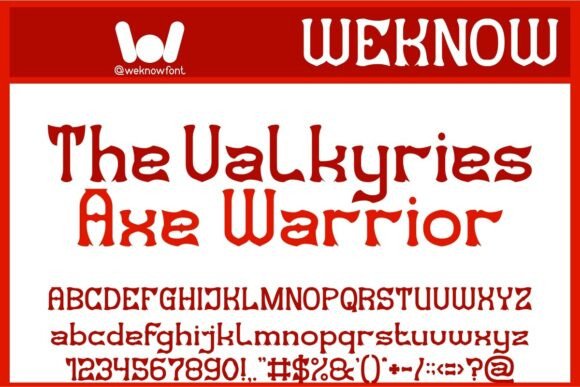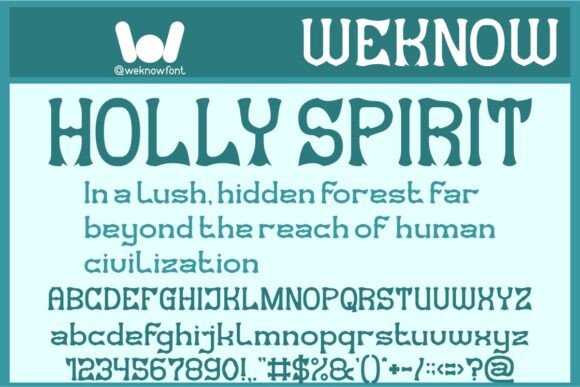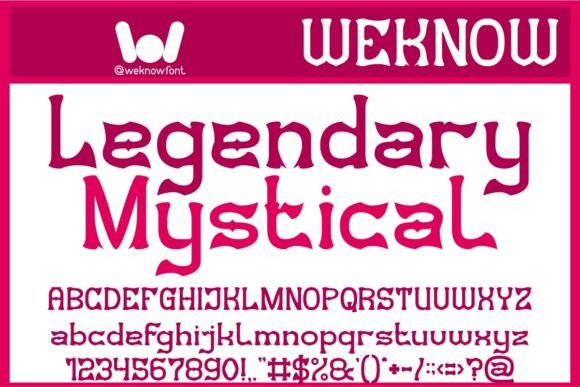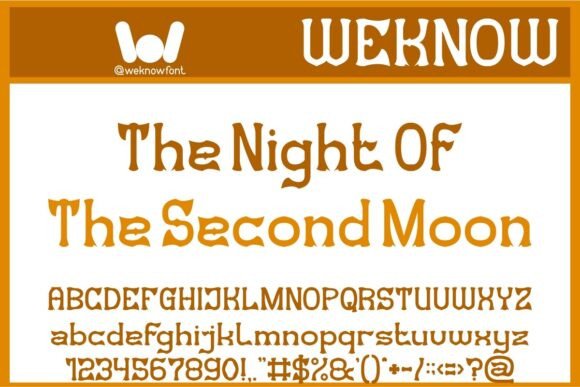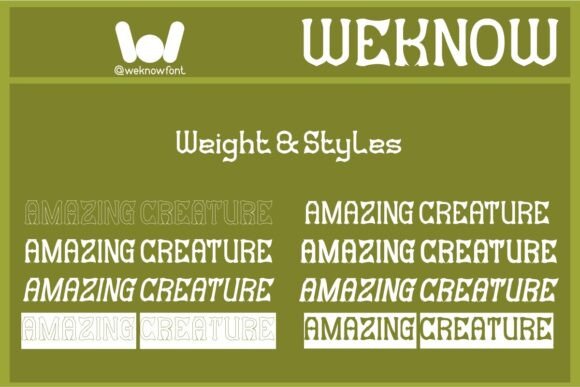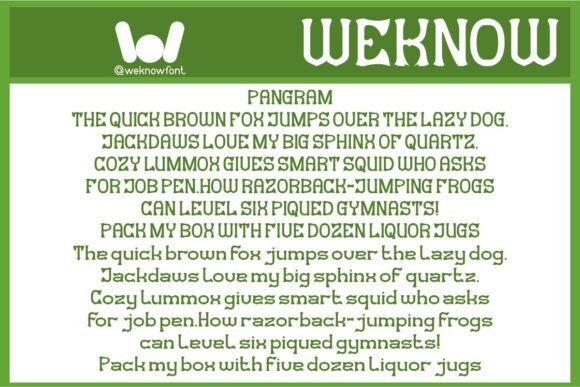
Unleash Your Creativity with Amazing Creature: A Modern Gothic-Inspired Display Font
Have you ever been in the midst of working on a design project, and suddenly, it hits you – the font you’ve chosen just isn’t cutting it? The vibe is off, the intensity is lacking, and you can’t seem to find the right words to convey the message. I recall a recent experience where I was tasked with creating a bold logo for a client’s new apparel line. The catch? It had to scream strength, intrigue, and a hint of creepiness. That’s when I stumbled upon Amazing Creature, a Modern Gothic-inspired display font that completely transformed my design.
A Personal Review: What I Love and What to Consider
- ✅ Bold and Edgy Aesthetic: Amazing Creature exudes a fearless attitude, perfect for designs that require a strong stance.
- ✅ Subtle Creepiness: This font masterfully balances boldness with an undercurrent of intrigue, making it ideal for projects that need a bit of mystery.
- ✅ Versatility: From logos and logotypes to headlines, magazine articles, and even apparel, Amazing Creature brings a unique vibe to various design projects.
- ✅ Robust Personality: It adds a distinctive character to corporate and brand identities, ensuring they stand out.
While Amazing Creature is incredibly versatile and robust, there are a few aspects to consider:
- 🤔 Legibility at Small Sizes: Like many display fonts, it may lose legibility when scaled down. It’s best used for headlines or larger design elements.
- 🤔 OpenType Features and Glyphs: While it supports OpenType features, some users might find the learning curve steep if they’re not familiar with using glyphs and stylistic alternates.
Imagine a designer, fueled by a passion for Gothic architecture and the mystique of ancient myths. This individual sought to create a font that wasn’t just a collection of letters but a statement piece. A font that could channel the strength of warriors, the mystery of pirates, and the chivalry of knights. And so, Amazing Creature was born – a testament to the power of design to evoke emotions and tell stories without words.
Q: What makes Amazing Creature unique?
A: Its bold outlook combined with a subtle hint of creepiness sets it apart, making it perfect for projects that seek to make an impact.
Q: Is Amazing Creature suitable for body text?
A: Due to its design as a display font, it’s best used for headlines and larger text elements rather than body text.
Q: Does Amazing Creature support OpenType features?
A: Yes, it does, offering users a range of glyphs and stylistic alternates to enhance their designs.
With Amazing Creature, your creativity knows no bounds. Whether you’re a seasoned designer or a creative hobbyist, this Modern Gothic-inspired display font is sure to elevate your projects, adding a bold, edgy aesthetic that’s hard to ignore.